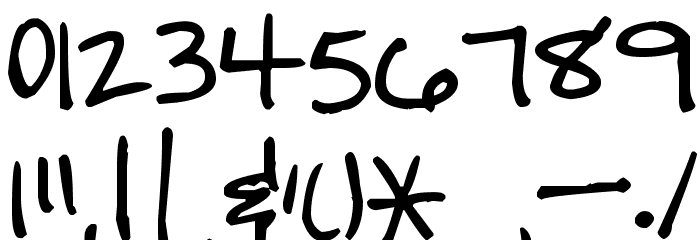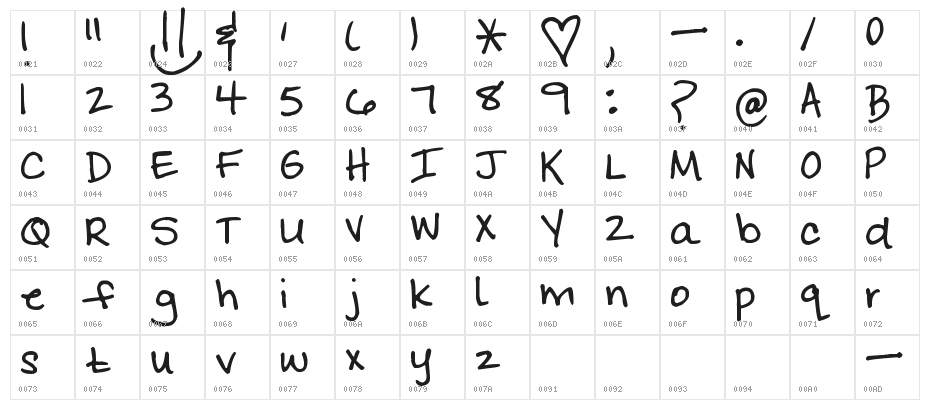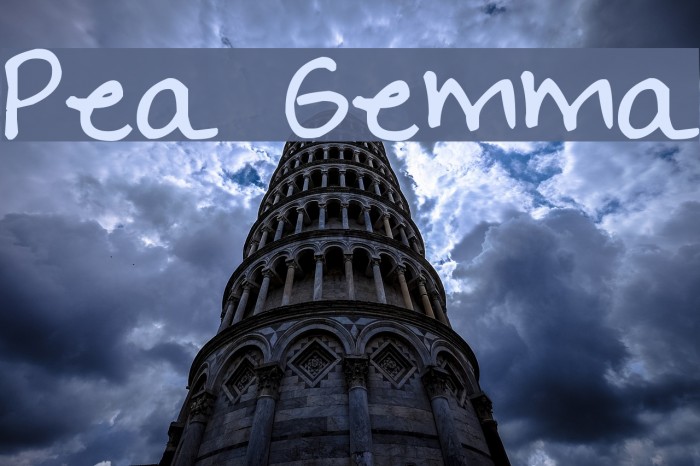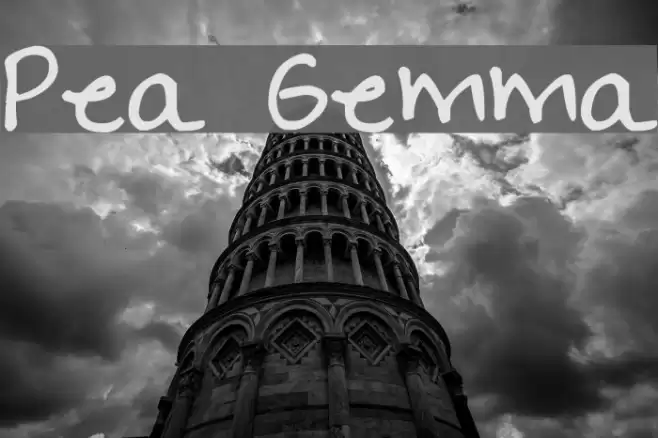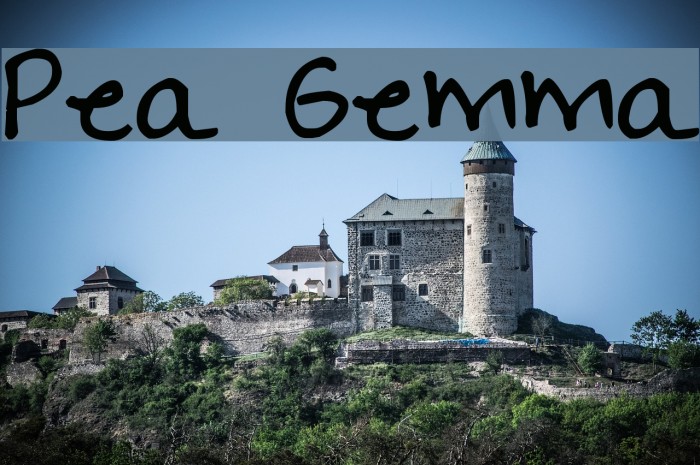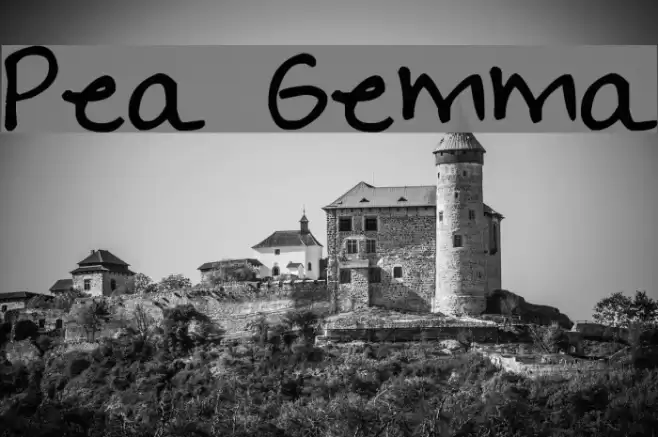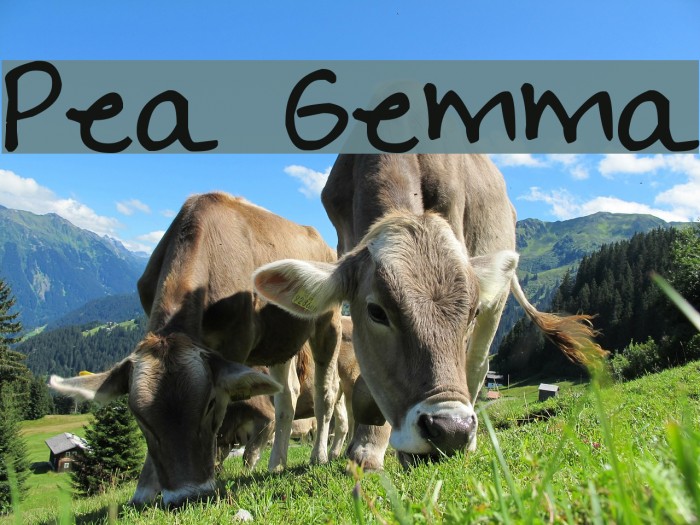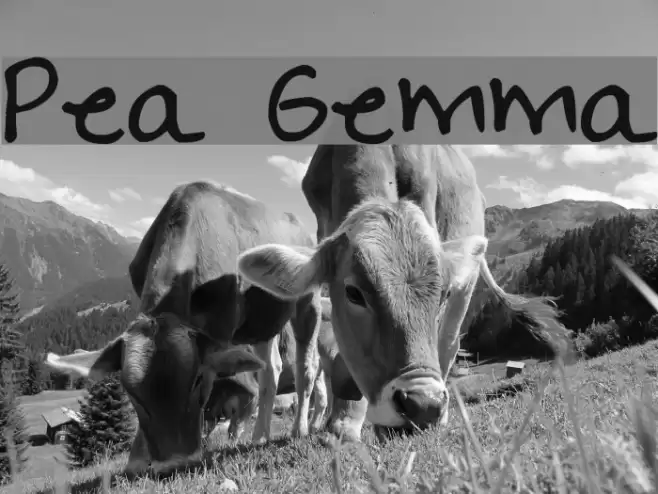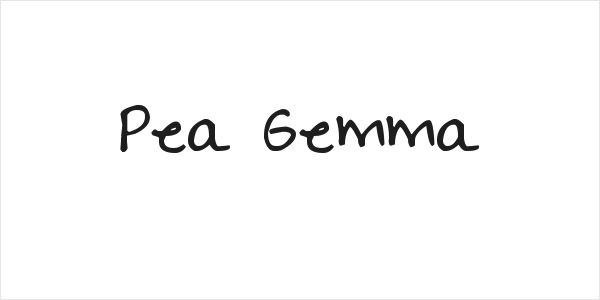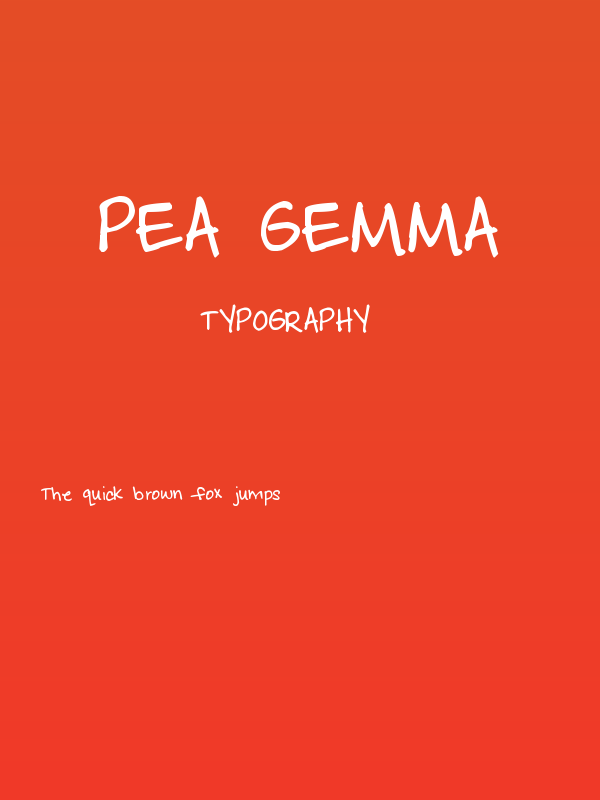
Pea Gemma Font
Pea Gemma Description
This font features a casual, handwritten style with a playful and informal appearance. The letters are slightly irregular, giving it a personal and authentic feel, reminiscent of natural handwriting. The strokes are smooth and consistent, with a medium thickness that maintains readability. The uppercase and lowercase letters are well-proportioned, and the numbers are clear and distinct. Special characters are included, adding versatility for various uses. This font is ideal for projects that require a friendly and approachable look.